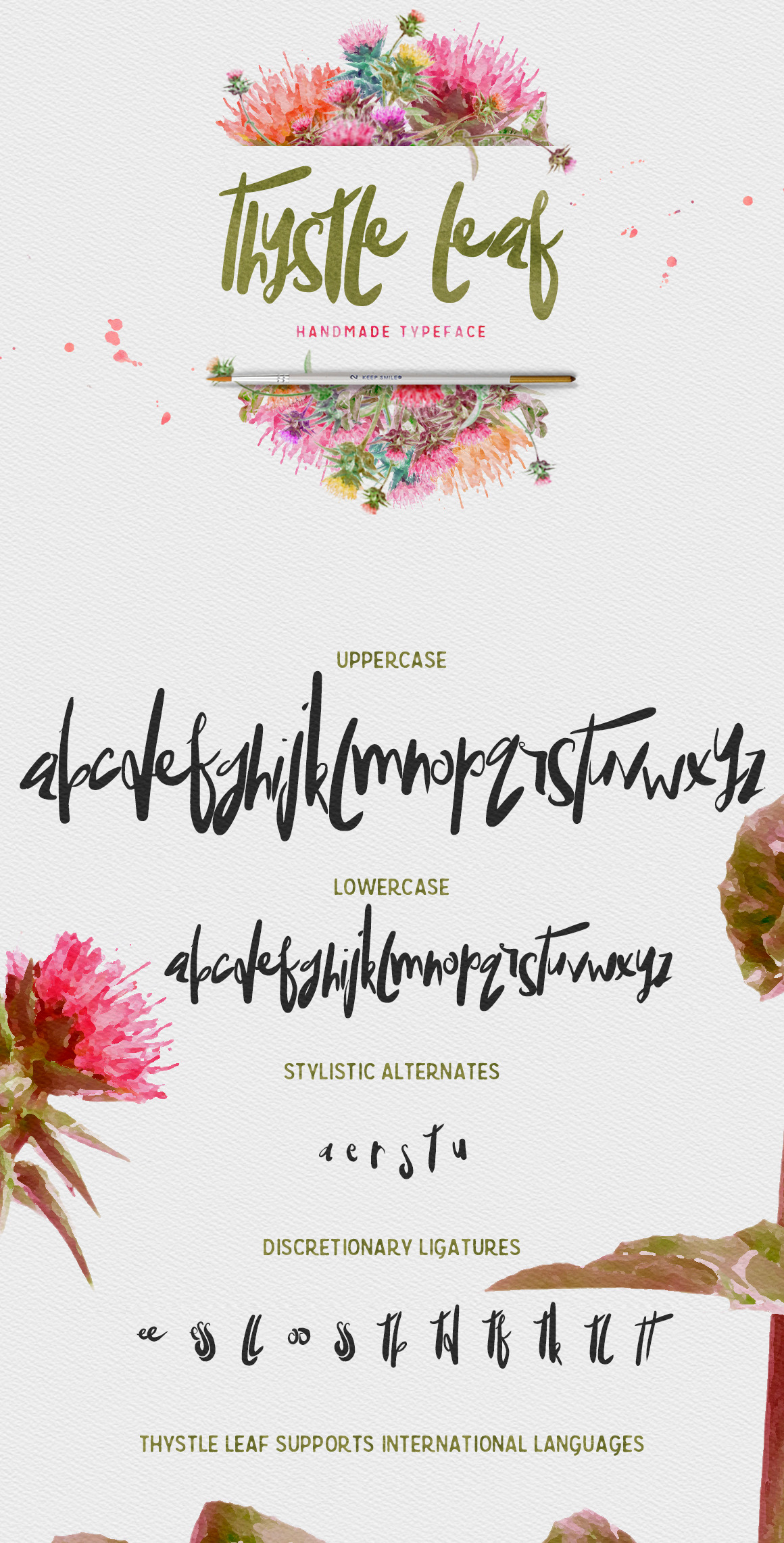
Introducing Thystle Leaf - an imperfect, hand drawn display semi-script typeface with an irregular baseline
Thystle Leaf comes with upper and lowercase characters, (uppercase are a larger version of the lowercase) punctuation, numbers, and supports international languages!